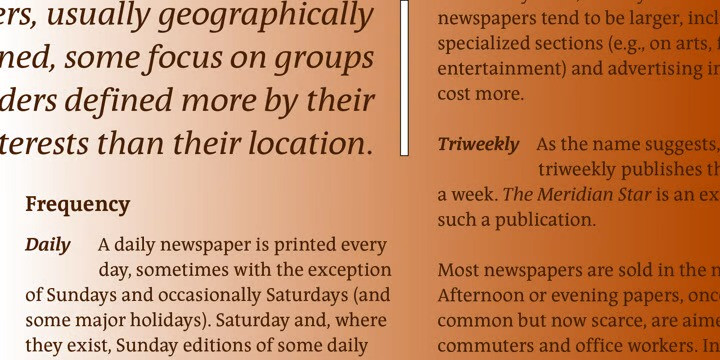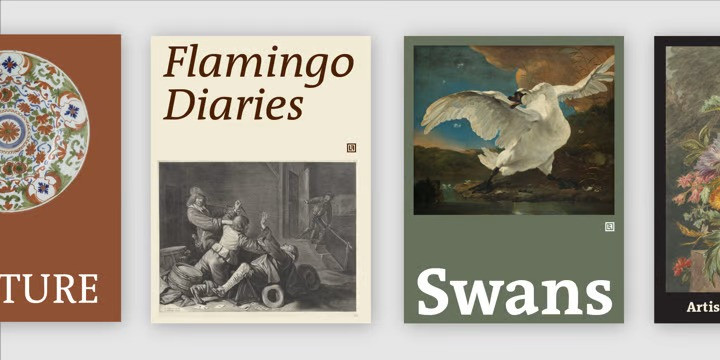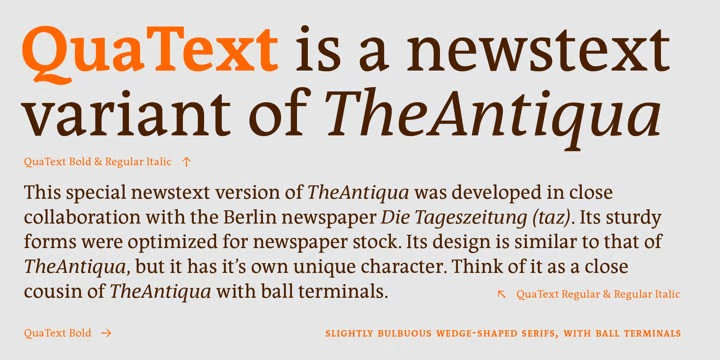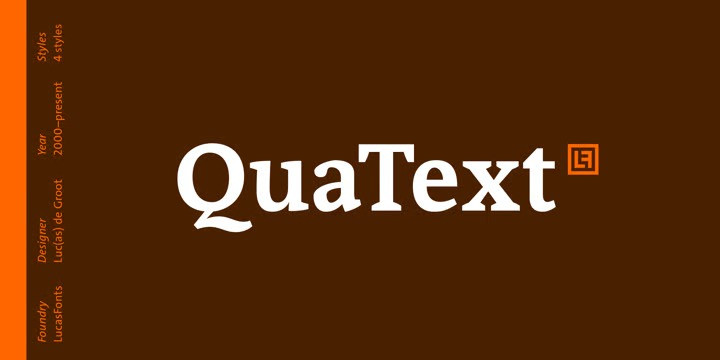
QuaText Serif Font is a serif font family in 4 different volume options expressing formality and elegance in your designs. Its sturdy forms were optimized for newspaper stock. This font family is currently being reworked and will be further developed with variable weights that can be adjusted to clients’ specifications.